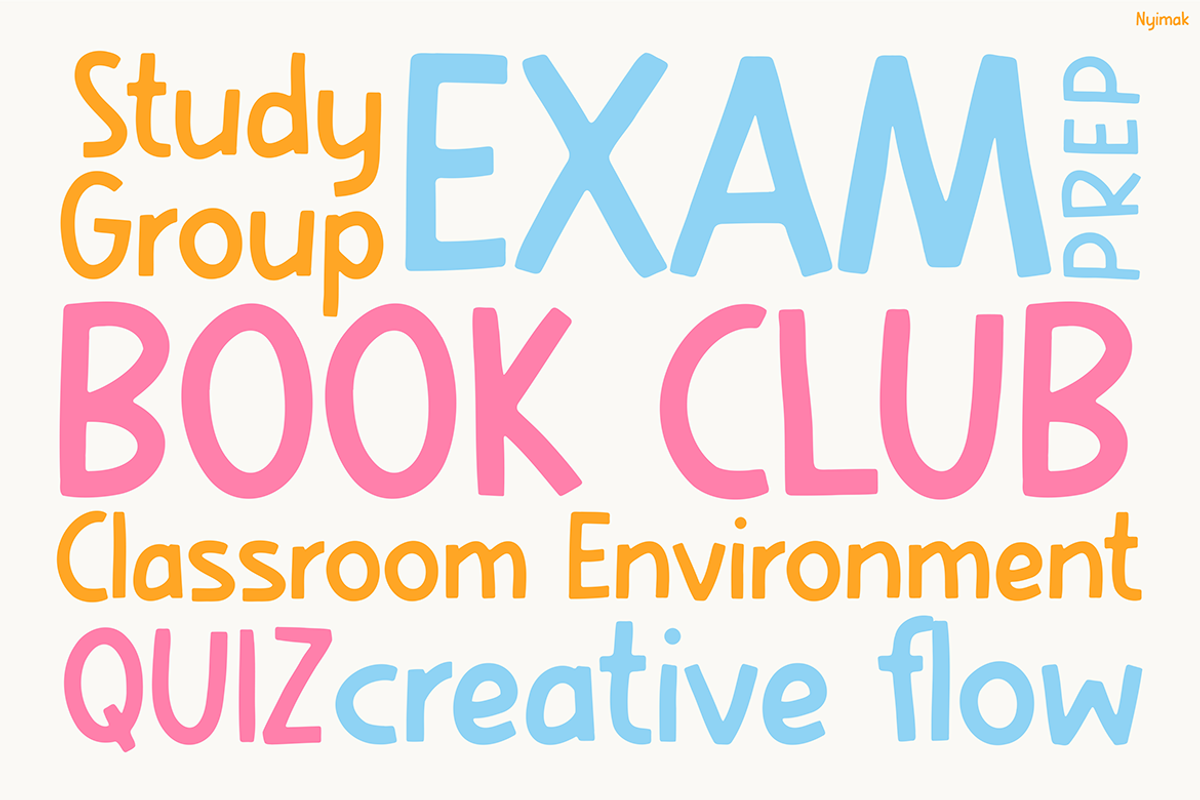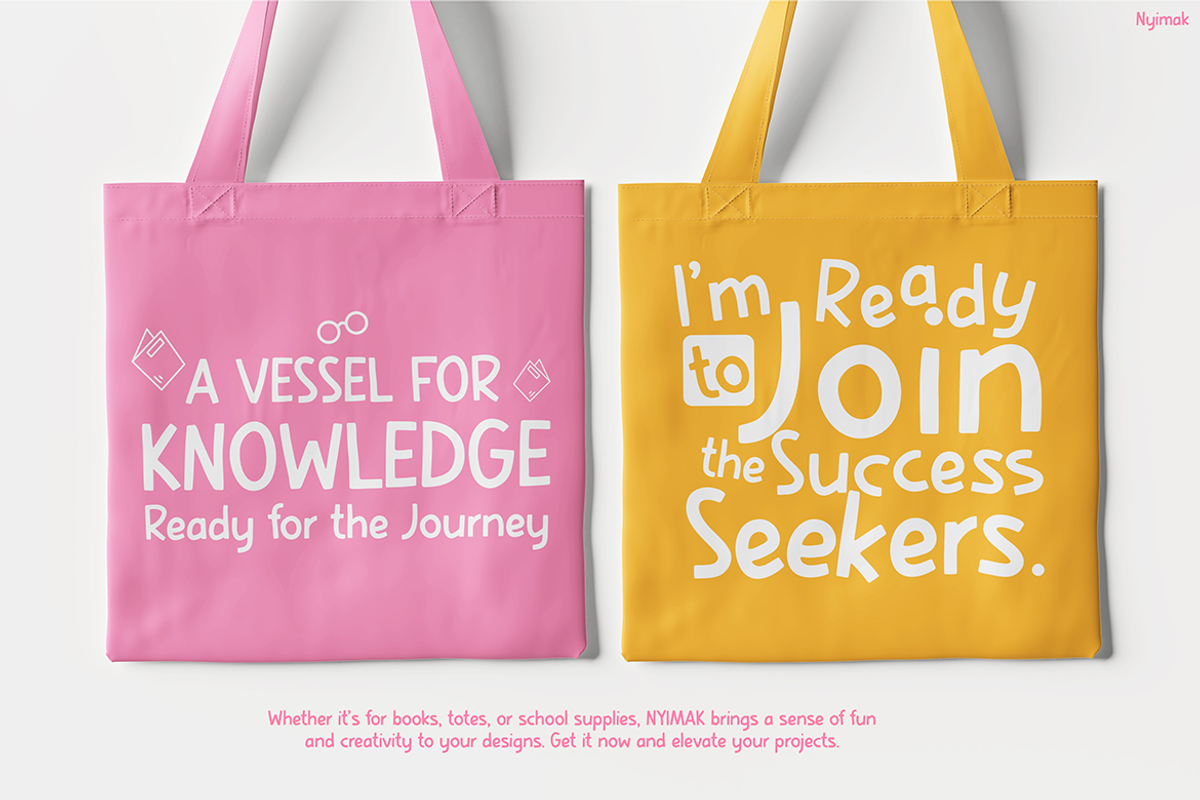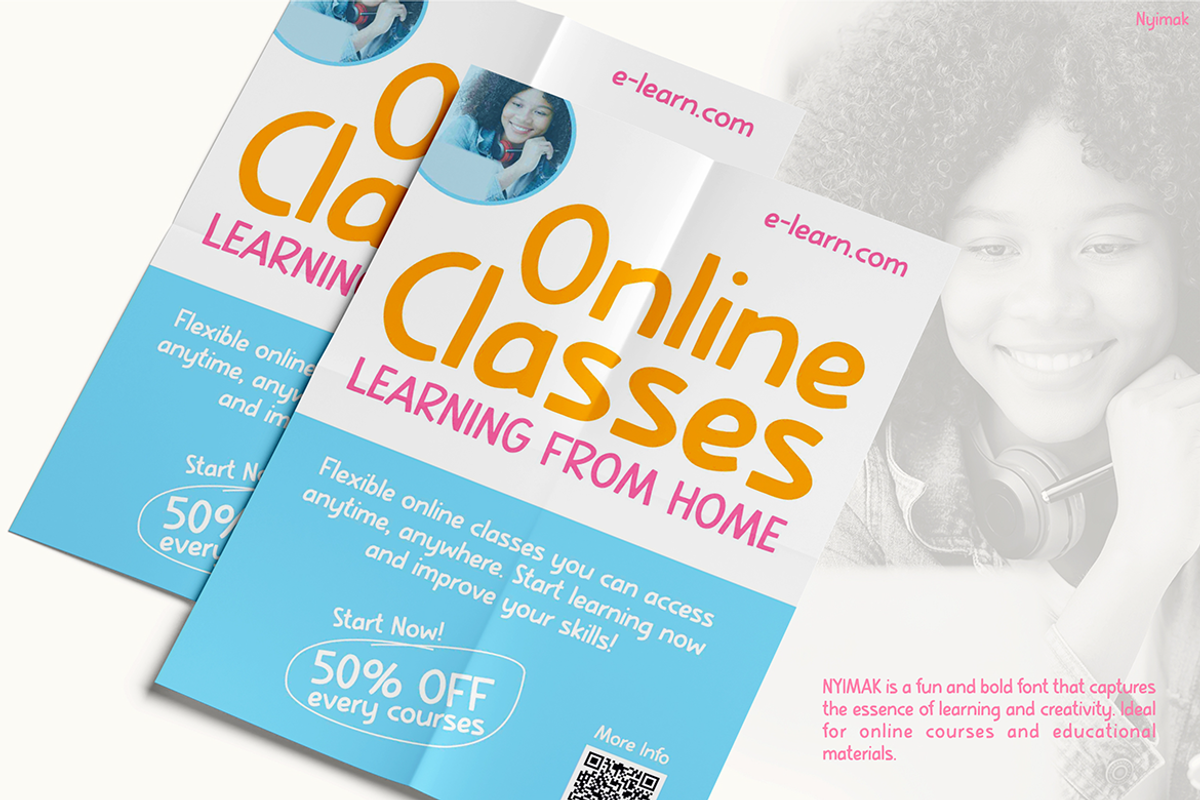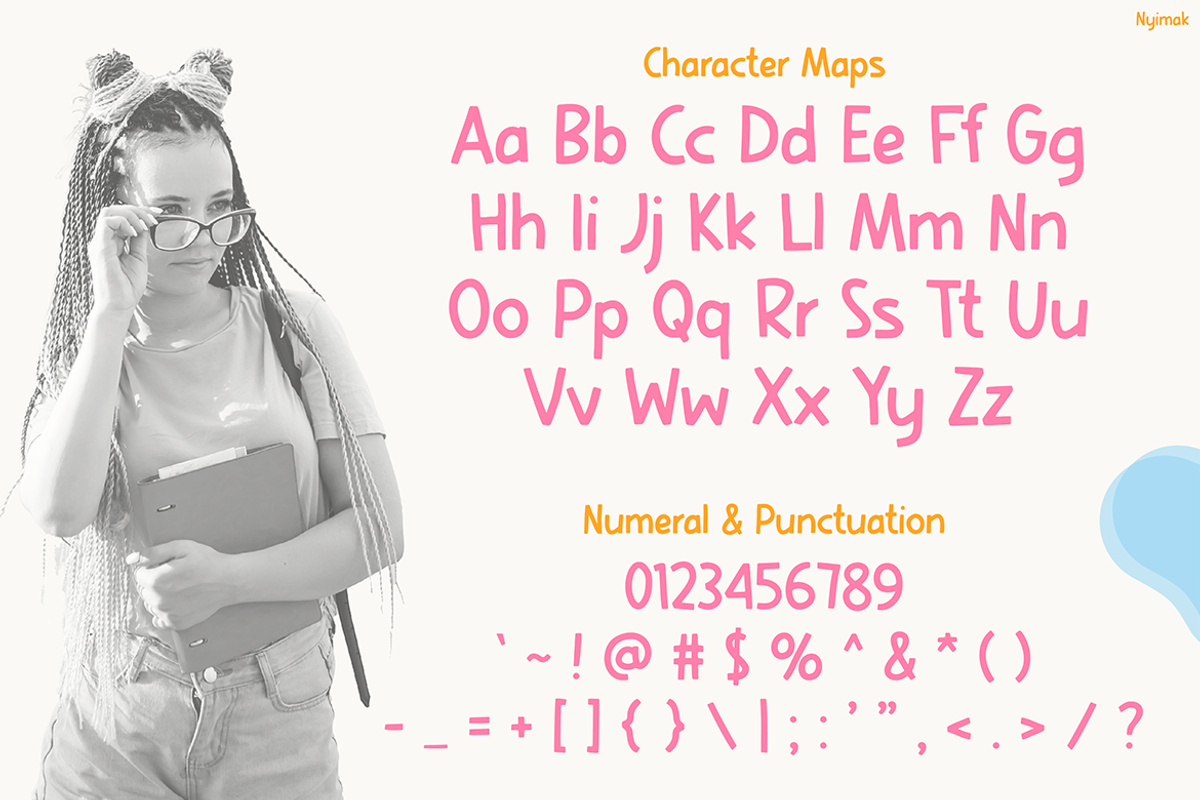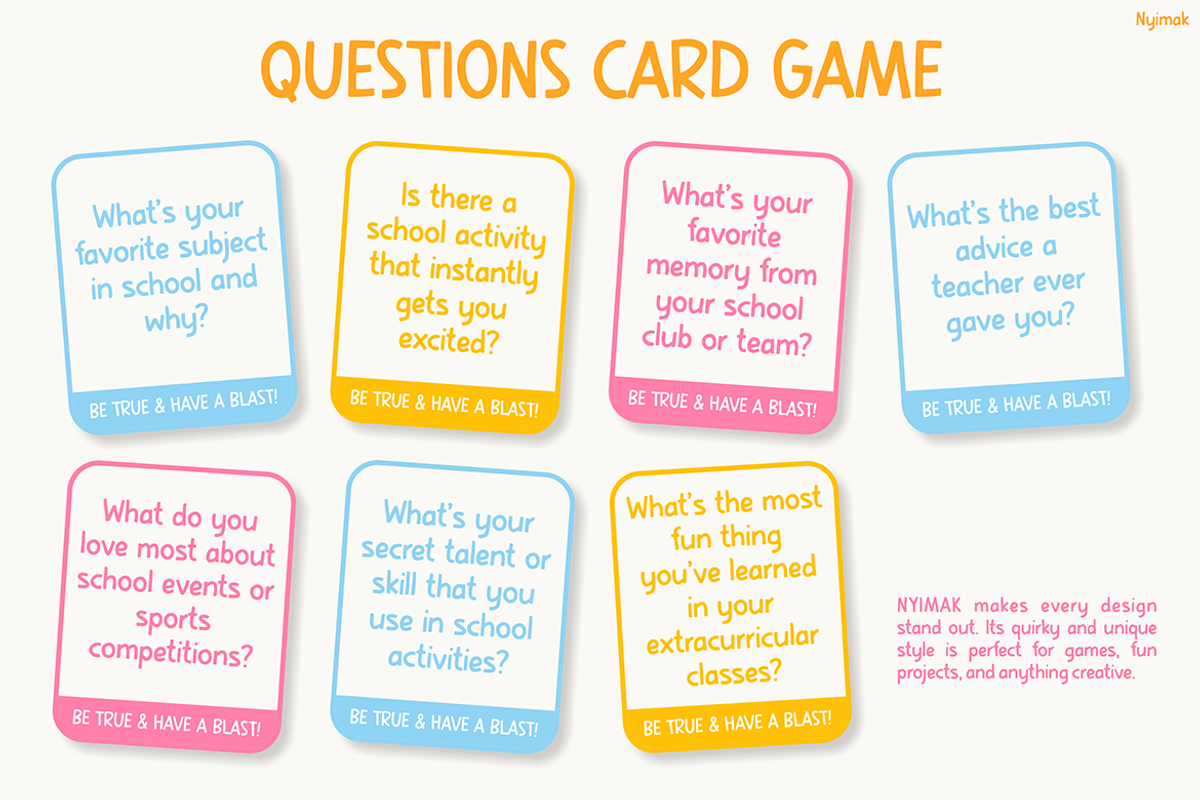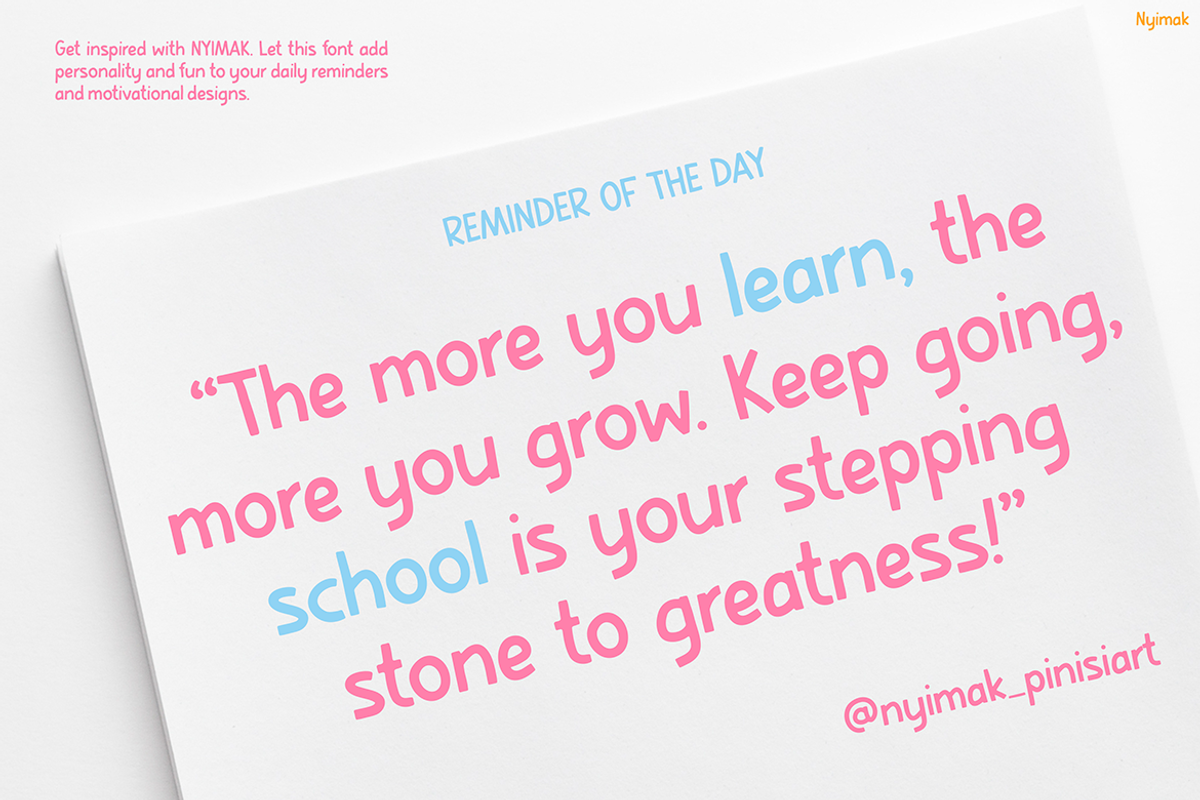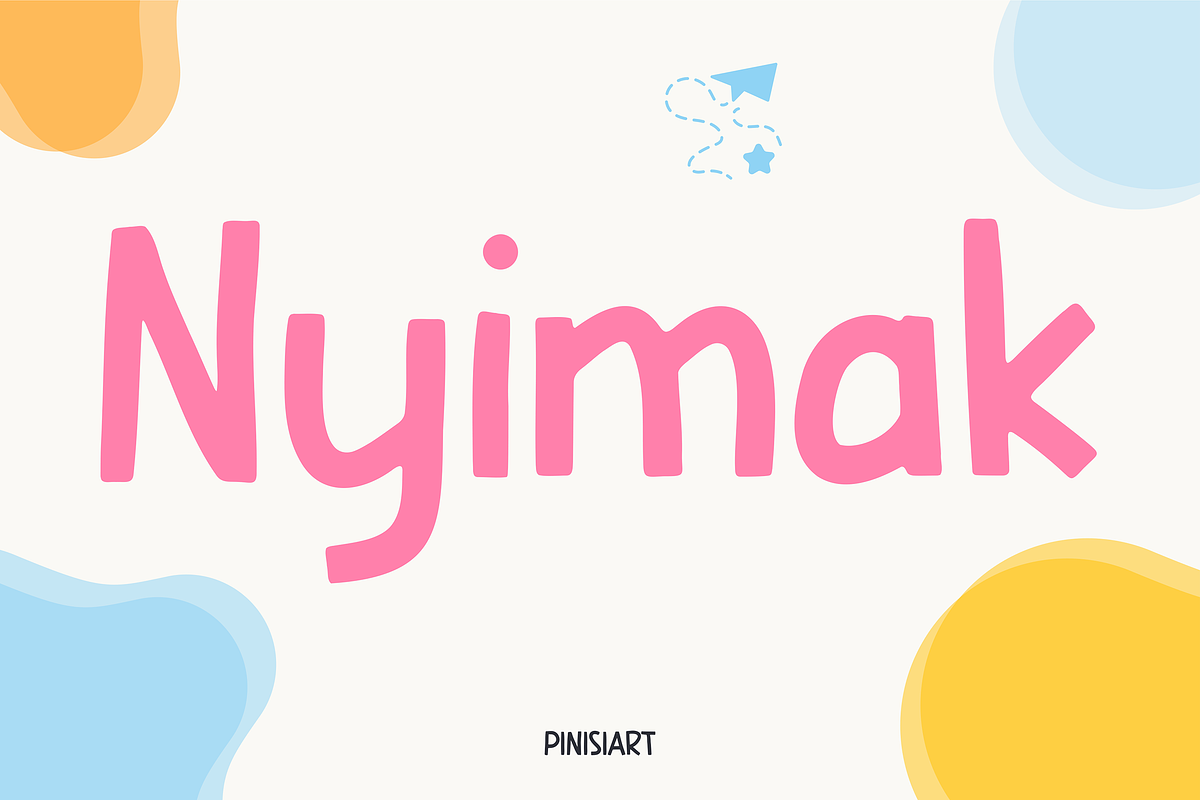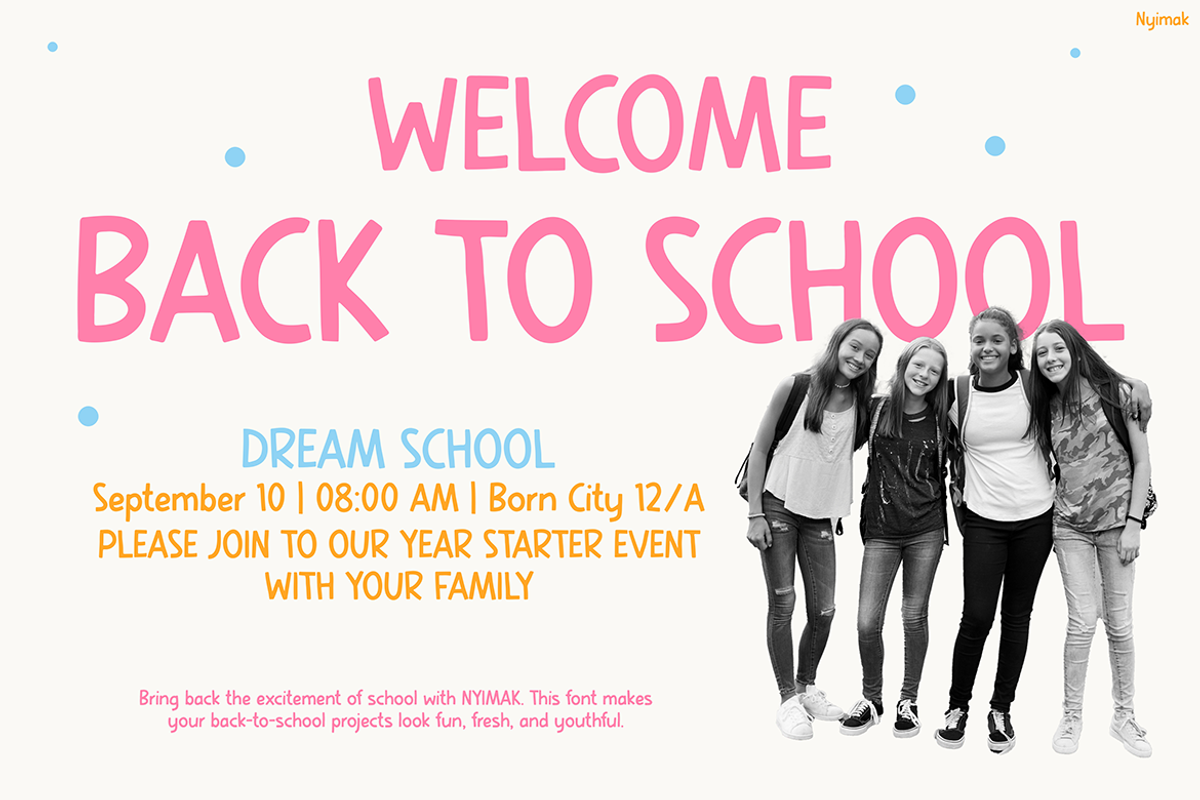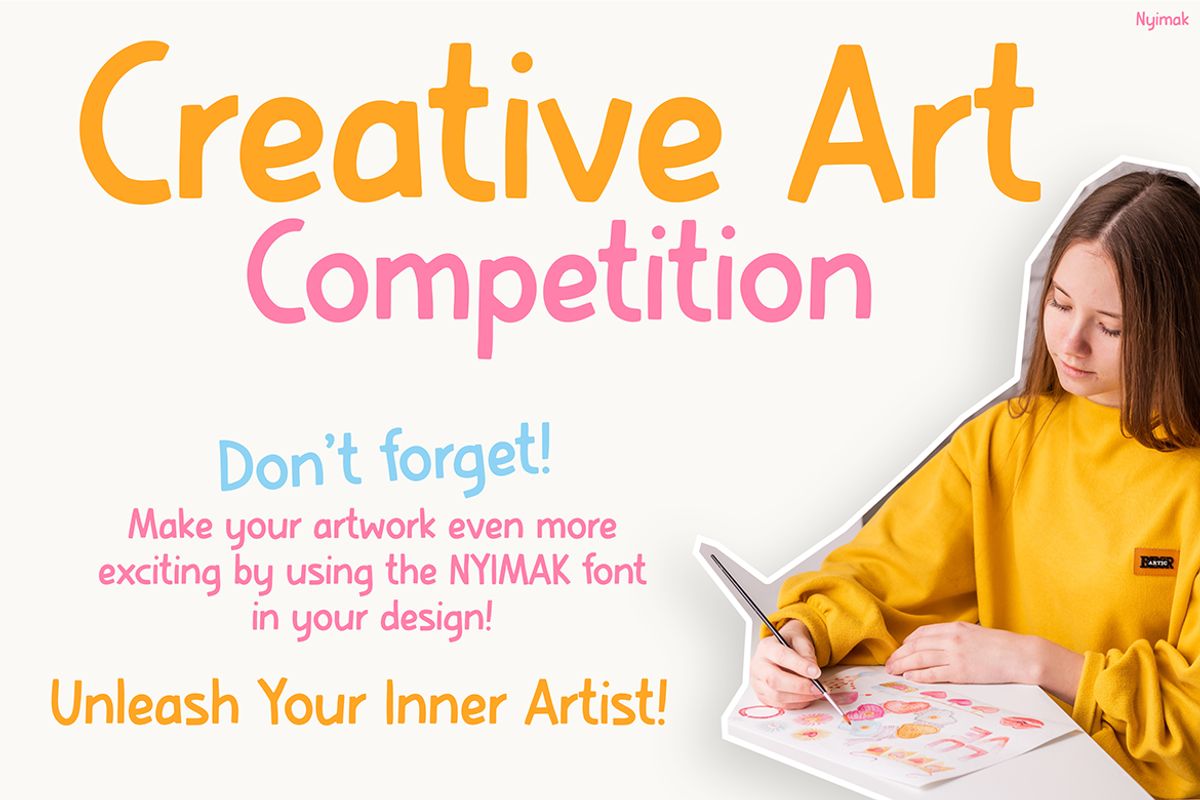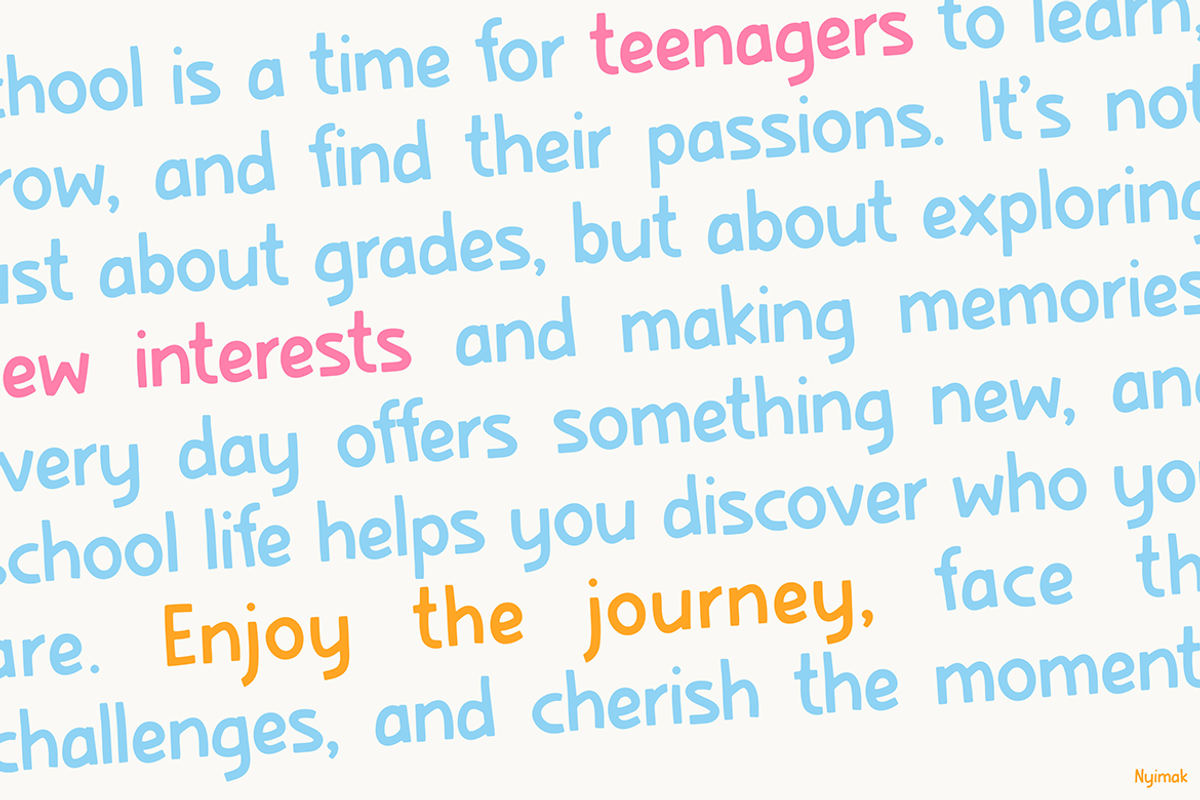
Nyimak
Kids Font Nyimak: A Fun and Playful Typeface for Creative Designs When it comes to designing something lively and engaging, Kids Font Nyimak is the perfect choice. This unique and charming font features a playful and energetic aesthetic that instantly grabs attention. The smooth, rounded edges combined with whimsical letterforms give it a friendly and approachable vibe, making it ideal for children’s content. Whether you’re working on a poster, book cover, or an educational worksheet, this font adds an element of joy and creativity to any project.
What makes Kids Font Nyimak stand out is its carefully crafted balance between fun and readability. Each letter showcases precise design to ensure clarity while maintaining a delightful and animated appearance. The soft curves and playful strokes create a sense of movement, making it feel dynamic and full of personality. The font captures the essence of childhood wonder, making it a fantastic choice for projects that aim to be both educational and entertaining.